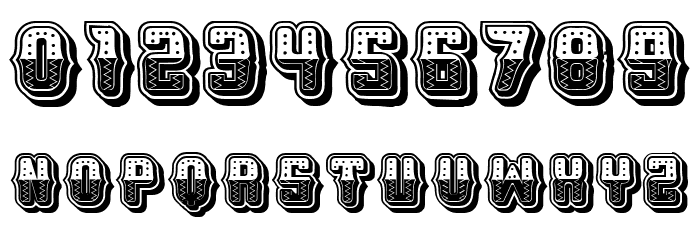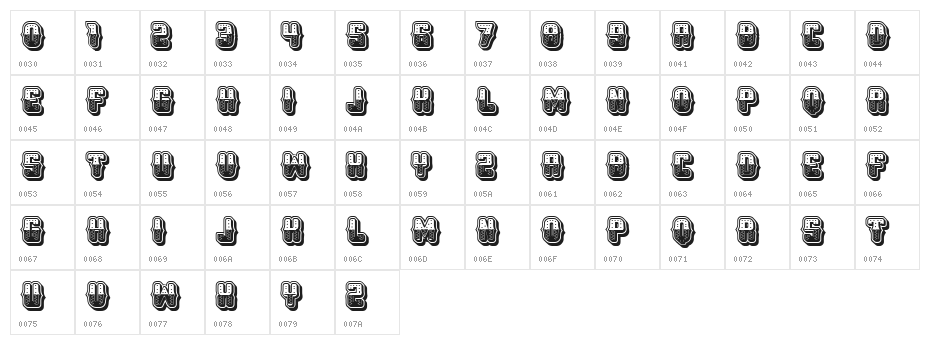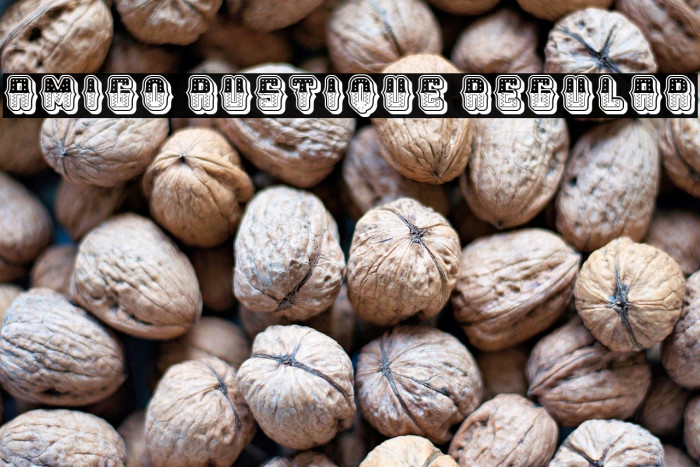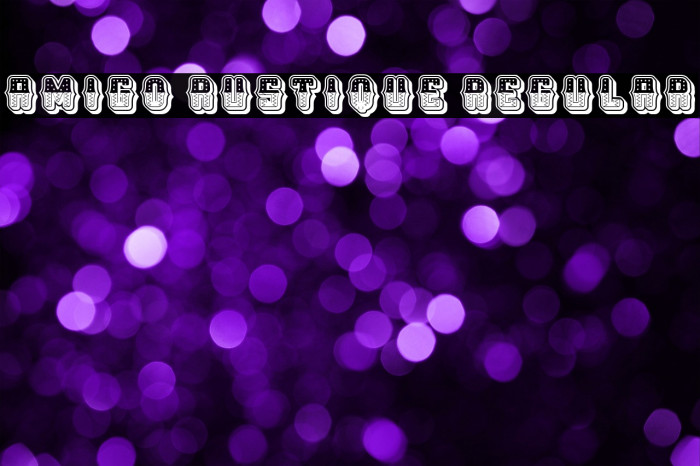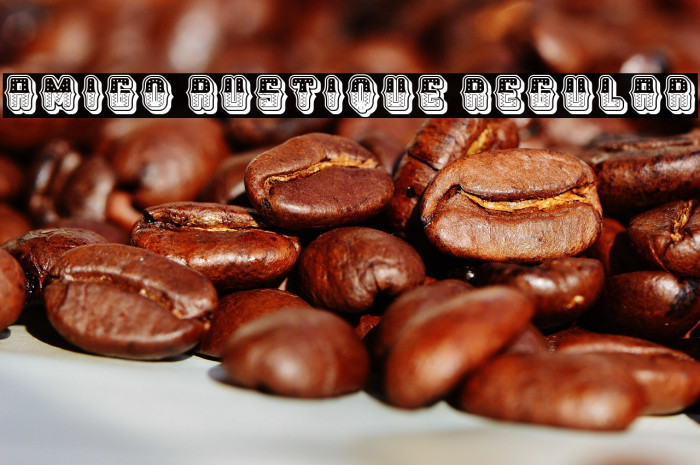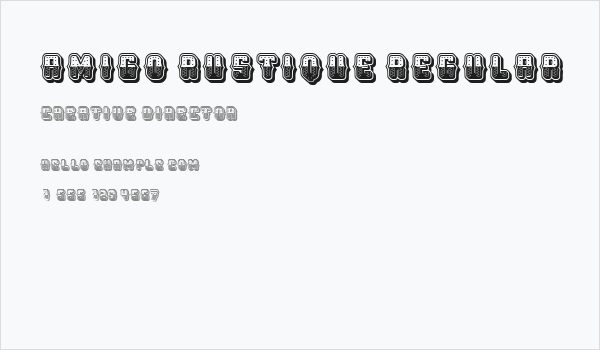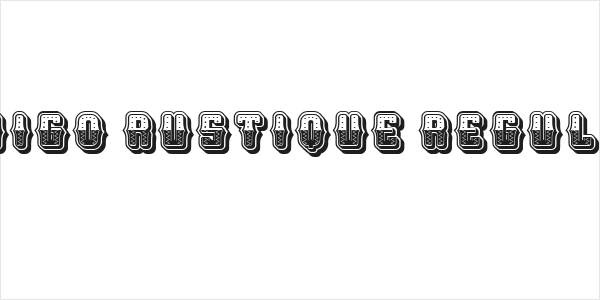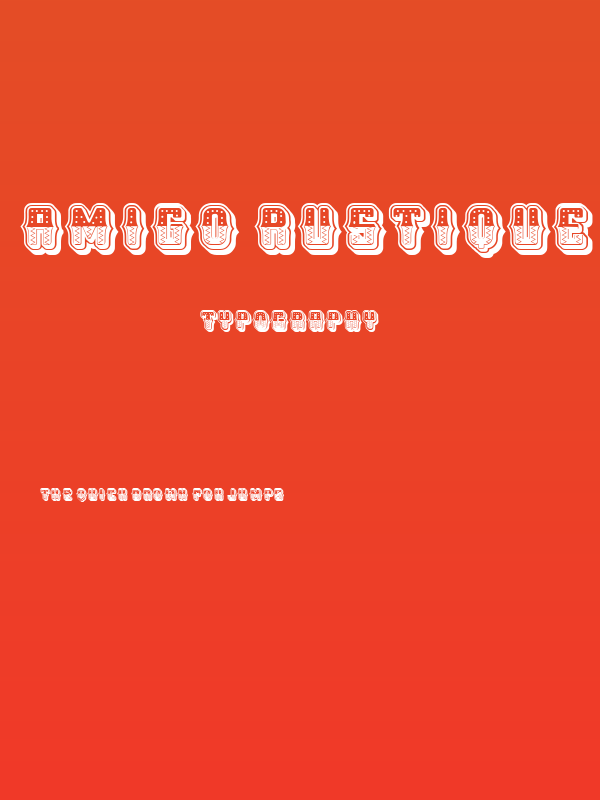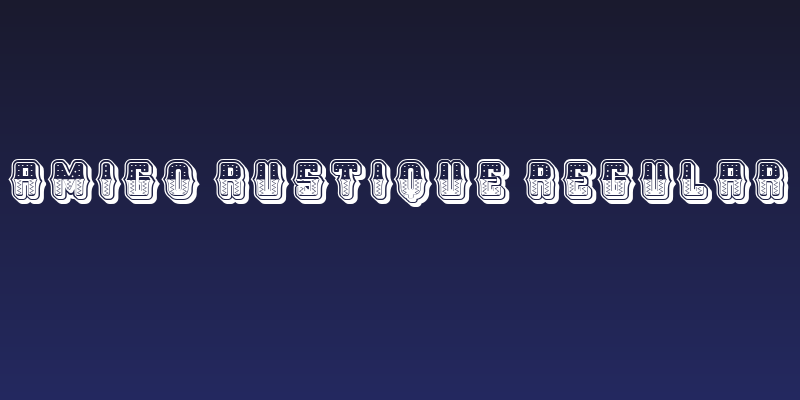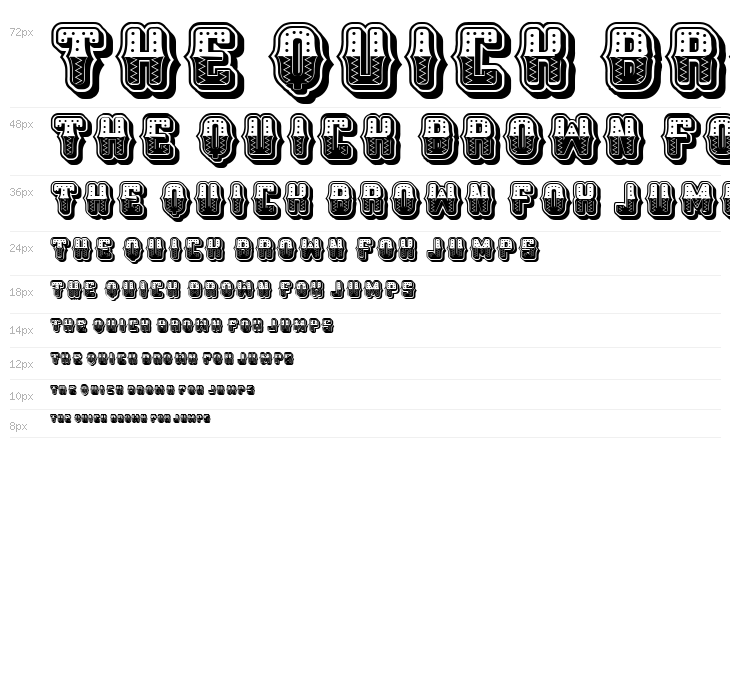
Amigo Rustique Regular Font
Amigo Rustique Regular Description
This font features a bold, decorative style with intricate patterns within each character, giving it a unique and artistic flair. The letters are outlined with a thick border, adding depth and a three-dimensional effect. The design incorporates a mix of geometric shapes and lines, creating a visually striking appearance. The font is highly detailed, making it ideal for eye-catching designs. Its playful yet structured form makes it suitable for creative projects that require a standout typeface.
| Proposed Projects | Ideal for posters, album covers, event invitations, and branding materials that require a bold and artistic touch. |